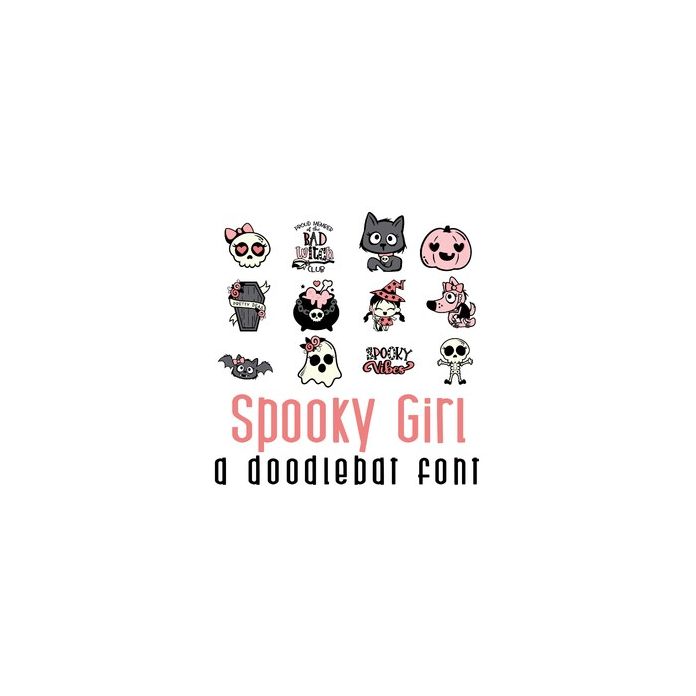
This adorable full-color doodlebat font features 26 girly Halloween images perfect for parties, crafts, gifts, decor, card making, scrapbooking, planner stickers and more!. Perfect for cards, crafts, gifts, decor, scrapbook pages, planner stickers, and more!